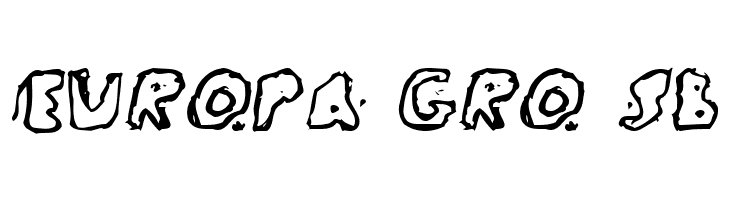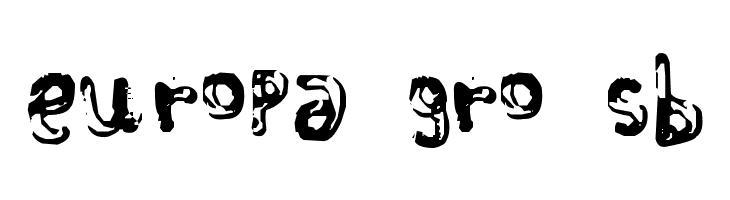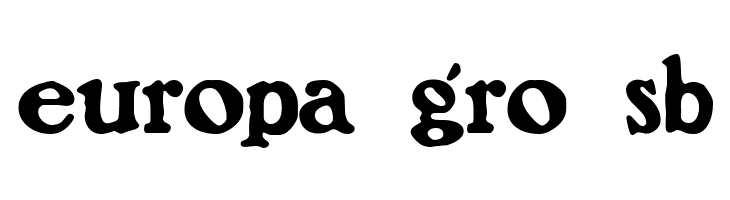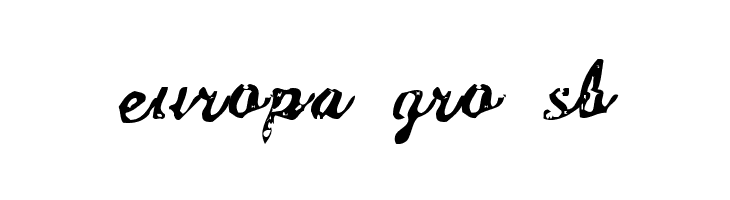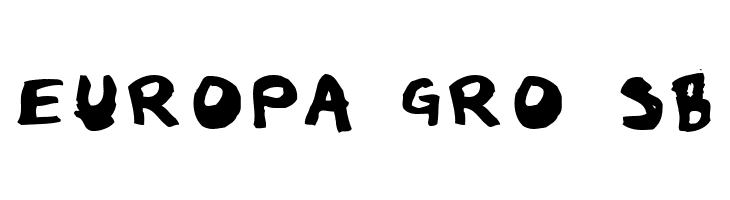
( Fonts by Mike Lecky - www.superfunk.com )
A rugged, distressed font with a cracked, edgy appearance.
( Fonts by Mr Fisk - Mike Larsson - fontorama.net )
A distressed, grungy font with bold, textured characters.
A classic serif font with bold, well-defined characters and a vintage aesthetic.
( Fonts by Dave Kellam - Brian Stuparyk - www.eightface.com )
A distressed, grunge-style script font with a vintage feel.
( Fonts by Dave Kellam - Brian Stuparyk - www.eightface.com )
A bold, hand-drawn font with an expressive and dynamic style.
( Fonts by Mr Fisk - Mike Larsson - fontorama.net )
A decorative, distressed font with jagged, graffiti-like uppercase letters.